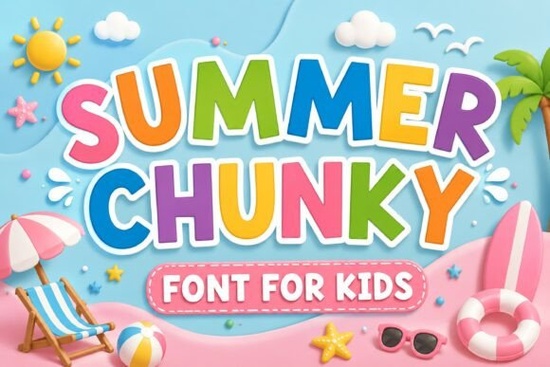
If you’re looking for a font that feels like sunshine in letter form, Summer Chunky might be exactly what your next project needs. It’s got that playful, beach-day energy thick letters with rounded edges and a cheerful bounce to them. Whether you’re designing kids’ party invites, summer camp merch, or social media graphics for seasonal sales, this font adds instant personality without needing extra decoration.
It works especially well if your audience is young families, educators, or anyone who loves bold, friendly visuals. Think lemonade stands, pool parties, ice cream logos, or classroom posters. The weight of the letters makes them easy to read even at smaller sizes, which is great for product packaging or stickers. And because it’s so visually distinct, you don’t need to pair it with much else to make an impact.
What kinds of projects does Summer Chunky work best for?
This isn’t a font for corporate reports or minimalist branding. It’s built for fun. Here’s where it really shines:
- Kids’ products T-shirts, tote bags, birthday cards, or classroom decor.
- Seasonal marketing Summer sales, beach events, vacation rentals, or festival posters.
- Social media graphics Instagram stories, Pinterest pins, or TikTok thumbnails where you want to grab attention fast.
- Print-on-demand items Mugs, phone cases, or greeting cards that benefit from bold, happy text.
If you’ve used fonts like Strawberry Milk Candy or Farmstead before, you’ll recognize that same handcrafted, whimsical charm but with more of a coastal, sun-soaked twist.
How does it compare to other display fonts on Creative Fabrica?
Summer Chunky sits comfortably between casual and structured. It’s not as rigid as College Black, which leans into varsity-style seriousness, nor as sugary-sweet as Strawberry Milk Candy. Instead, it’s got that balanced vibe playful but legible, chunky but not overwhelming.
Does it pair well with other fonts?
Absolutely. Because Summer Chunky is so bold and stylized, it works best when paired with something clean and simple. Try using a basic sans-serif like Helvetica, Montserrat, or even Arial for body text or secondary headlines. That contrast lets the chunky letters pop without competing for attention.
If you’re going for a full-theme look say, a summer camp brochure you could also mix it with Farmstead for subheadings. The rustic feel of Farmstead balances nicely with Summer Chunky’s beachy brightness.
Any tips for getting the most out of this font?
Here are a few practical ideas:
- Use color wisely. This font already has tons of personality, so bright pastels or saturated primaries enhance its vibe without clashing.
- Don’t overuse it. One headline or focal phrase is usually enough. Too much can feel overwhelming.
- Add subtle textures. A light grain or watercolor background can soften the boldness and give it that handmade, summery feel.
- Test readability. Especially on merchandise make sure the letters stay clear at smaller sizes or on curved surfaces like mugs or hats.
And if you’re ever unsure whether Summer Chunky fits your project’s mood, try sketching out a quick mockup. Sometimes seeing it next to your logo or photos tells you everything you need to know.